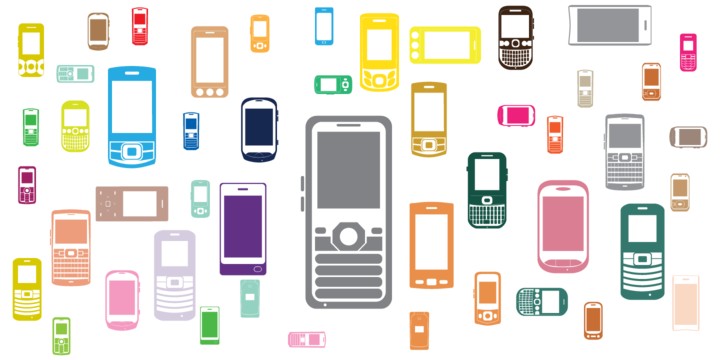
LGPhone
LGPhone is a font that was inspired by Lg phones. This fonts are created by Leandro Ribeiro Machado . This fonts must be used for ilustrating design work Download lgphone font Lgphone  font detail Foundry :  Leandro Ribeiro Machado Released : Oct 11, 2011 Price: $ 9,80 from $ 49,00 ;